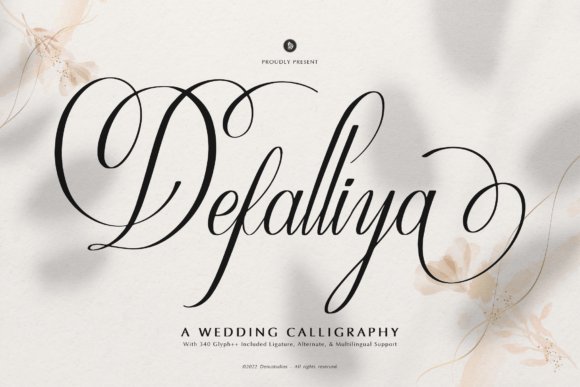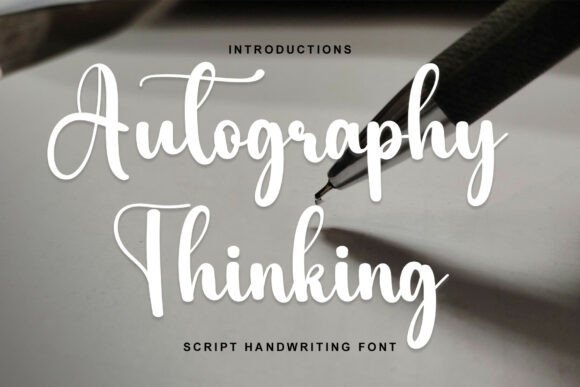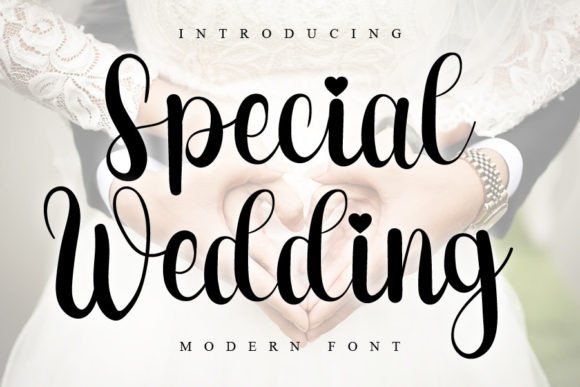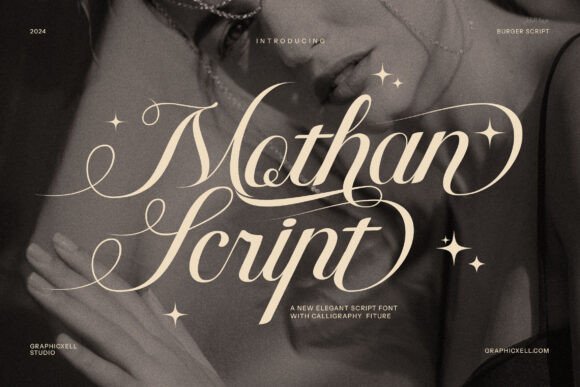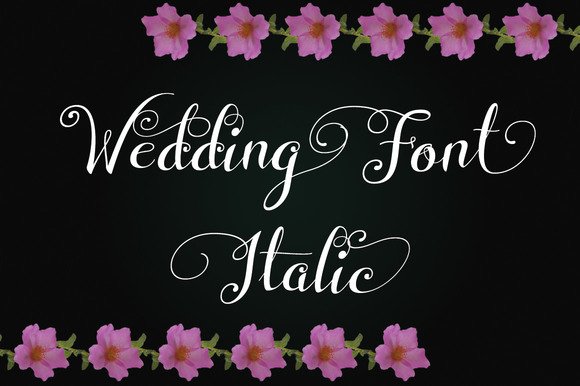
The 35 Best Wedding Fonts for Elegant Invitations (2026 Guide)
Planning your big day involves countless little details, and choosing the right typography is often one of the hardest parts of designing your stationery. Whether you are creating classic invitations, modern save-the-dates, or beautiful reception menus, the lettering sets the tone for your entire celebration. To help you skip the endless scrolling, I have put together a handpicked collection of 35 gorgeous Wedding Fonts that are incredibly popular in 2026. From flowing calligraphy to chic cursive script fonts, these stunning typefaces will give your wedding materials that professional, romantic touch without the designer price tag.
1. Gita Lian Font
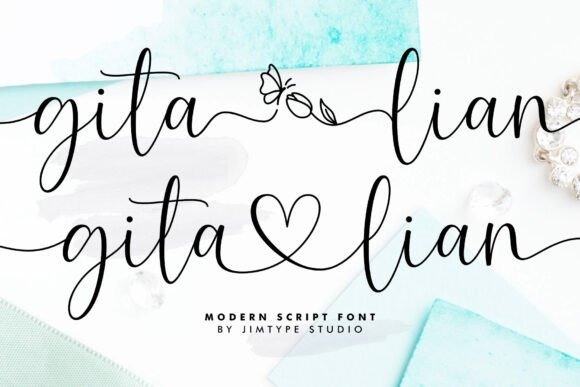
When searching for the quintessential choice among wedding fonts, the Gita Lian Font stands out as an absolute breathtaking masterpiece. This typeface captures the pure essence of romance with its masterfully crafted script swashes and delicate heart connections that seamlessly link letterforms together. It exudes a bespoke, hand-lettered aesthetic that immediately sets an elegant and loving tone, making it a stellar addition to any designer’s collection of bridal typography.
Beyond simply looking pretty, Gita Lian is highly versatile and acts as the perfect typographic foundation for your most romantic projects. Whether you are designing luxurious wedding invitations, crafting intimate save-the-date cards, or developing sophisticated event branding, this typeface ensures every word shines with beauty. It offers that highly sought-after blend of heartfelt charm and professional elegance, guaranteeing your wedding stationery leaves a lasting, memorable impression on every guest.
2. Willowshine Font
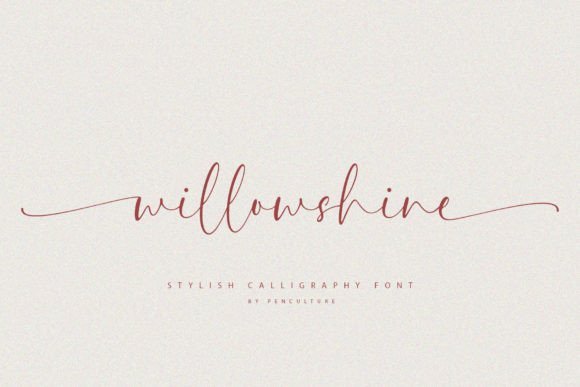
Willowshine Font is a masterclass in modern calligraphy, bringing a vibrant yet sophisticated flair to the world of wedding fonts. What truly sets this stylish script apart is its incredibly smooth curves and authentic beginning and ending swashes, which give every word a joyful, custom-lettered rhythm. The graceful flow of the characters creates a harmonious aesthetic that feels completely natural, effortlessly capturing the joyous spirit of a grand romantic celebration.
For designers tasked with curating the perfect bridal stationery, Willowshine provides endless typographic possibilities. Its full suite of ligatures and decorative swashes makes it an exceptional choice for designing breathtaking wedding invitations, striking RSVP cards, and elegant welcome signs. If you want to inject a modern luxury spark into your event branding or a couple’s monogram, this stunning calligraphy font delivers a flawless balance of contemporary charm and timeless elegance.
3. Yellow Molly Font
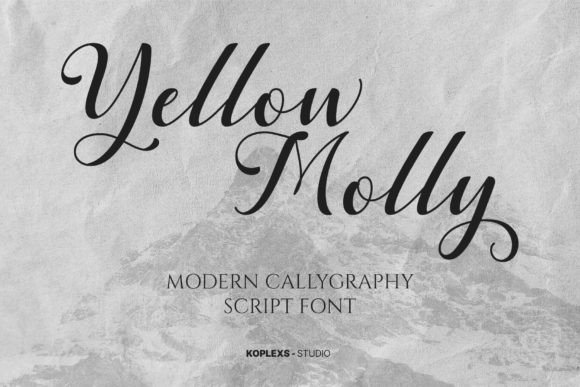
If you are looking to step away from overly heavy or traditional styles, the Yellow Molly Font offers a beautifully light, handwritten alternative that breathes fresh air into any design. This unique typeface carries a delicate, airy feel that has become incredibly popular within modern wedding fonts, striking the perfect balance between casual elegance and high-end luxury. Its unforced, organic strokes mimic the intimacy of a handwritten love letter, instantly adding a bespoke spark to your digital and print canvases.
This stunning light script is incredibly adaptable, making it a go-to asset for creating minimalist yet impactful wedding invitations, romantic elopement announcements, and chic bridal shower graphics. Yellow Molly excels in projects where less is more, allowing the natural beauty of the typography to serve as the focal point. Whether you are using it for refined event branding, elegant table menus, or delicate save-the-dates, this font guarantees a sophisticated finish that radiates pure, understated luxury.
4. Dellanor Script Font
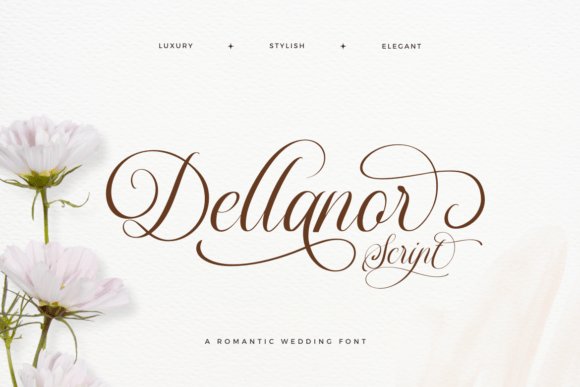
Dellanor Script is a breathtakingly romantic typeface that perfectly encapsulates the luxury and stylish elegance required for premium nuptial aesthetics. When searching for the ideal wedding fonts to elevate your bridal invitations, this graceful script stands out with its ornate and decorative letterforms. It effortlessly bridges the gap between classic calligraphy and modern sophistication, making it an exquisite choice for save-the-date cards, elegant event signs, and formal event typography that demands a touch of true romance.
Beyond its initial visual appeal, Dellanor Script offers a treasure trove of typographic versatility. The inclusion of numerous alternative options allows designers to explore a variety of unique looks for each letter, ensuring that your marital branding and personalized stationery are entirely bespoke. By customizing the sweeping tails and delicate loops, you can craft a beautifully tailored visual identity that makes your wedding invitation design truly unforgettable and uniquely yours.
5. Lonely Font
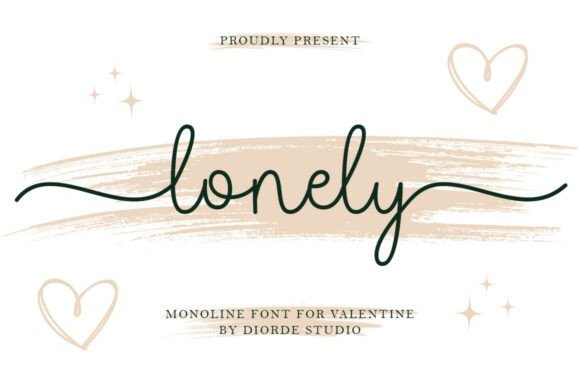
Capture the beauty of effortless elegance with the Lonely Font, a captivating monoline script designed specifically for romantic celebrations and intimate storytelling. Unlike overly ornate wedding fonts, this typeface features a fluid, continuous rhythm with sweeping horizontal swashes that give every single word a sense of graceful movement. It is absolutely perfect for Valentine's Day projects, elegant photography watermarks, and high-end wedding stationery. By adding a personal, human touch that feels simultaneously modern and timeless, this romantic typeface brings a sophisticated lifestyle aesthetic to any bridal layout.
I hope this roundup helps you find the exact style you need for your DIY invitations and day-of stationery. Typography plays a huge role in setting the mood for your event, and any of these beautiful script choices will ensure your designs look elegant and cohesive. Take your time testing out a few favorites, and have fun putting together the perfect paper goods for your special day!